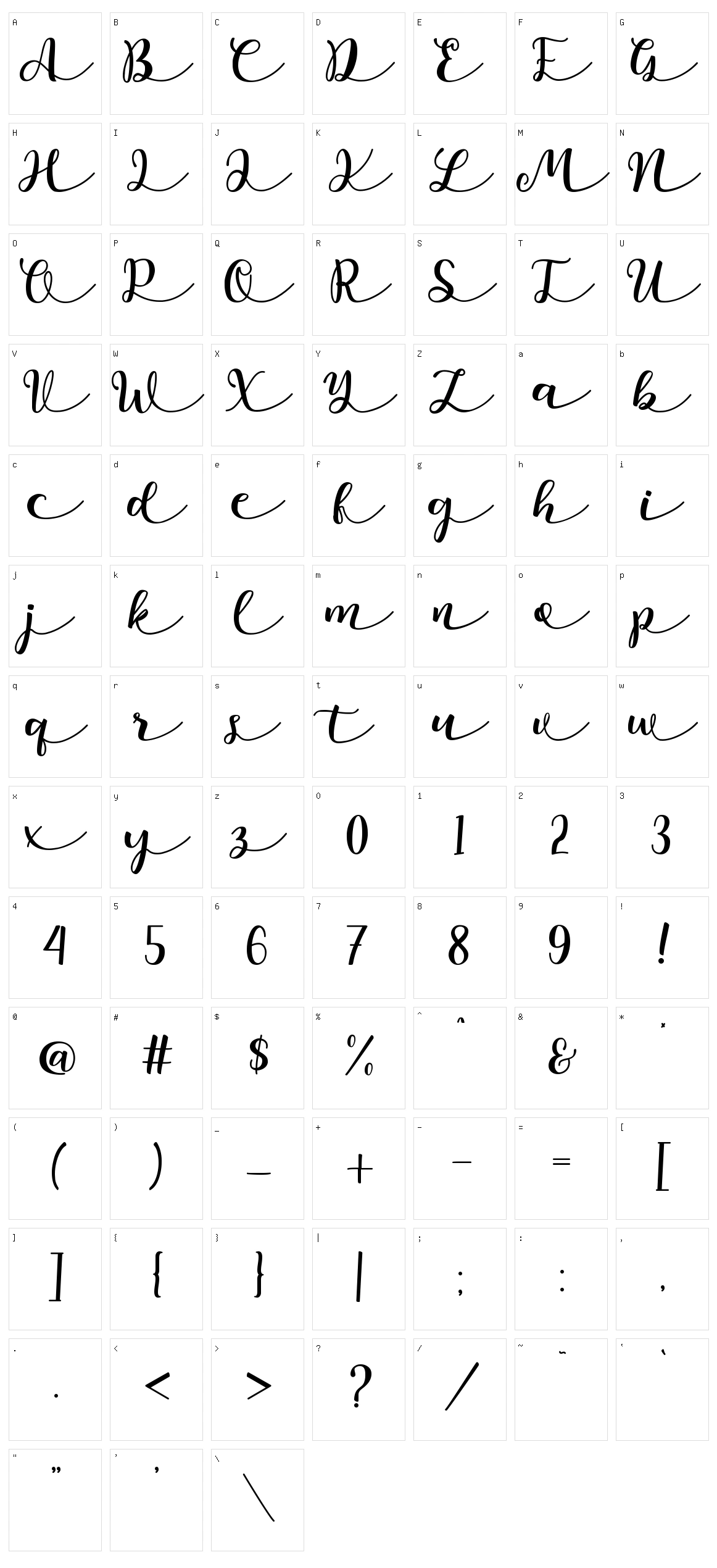
The free font Namira is carefully designed by Madatype Studio, showcasing a thoughtful balance of creativity and usability and falls under the Script font style. When you download the ZIP file, it contains only 317.89 KB of font files, making it lightweight and quick to download. Please review the license details below to understand permitted usage and distribution rights. If license information is not available, we recommend using this font for personal projects only or contacting the author directly for commercial usage permissions.